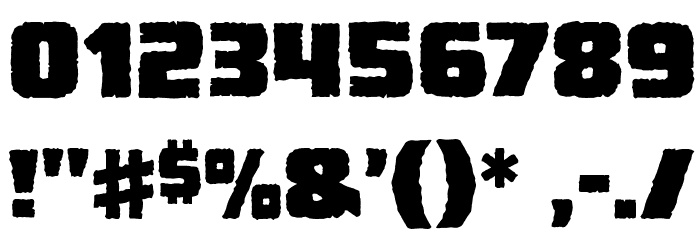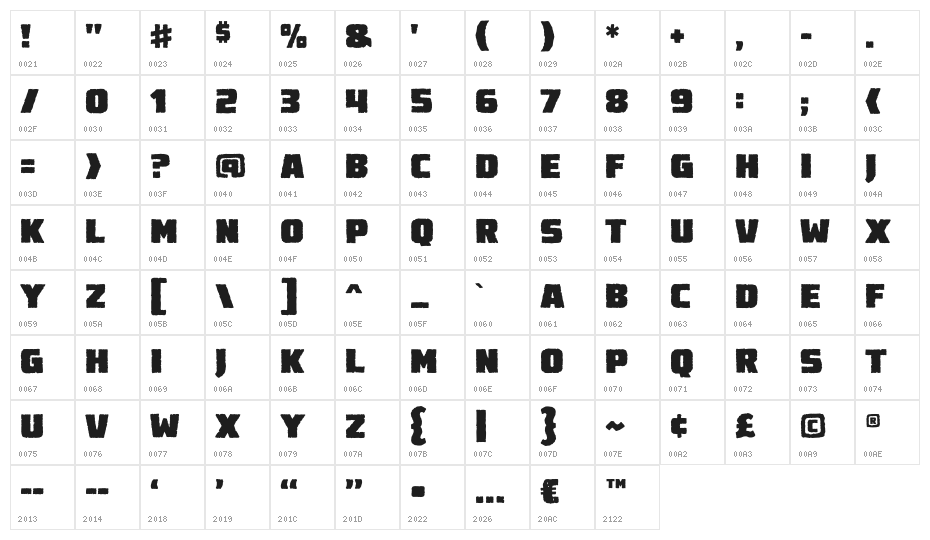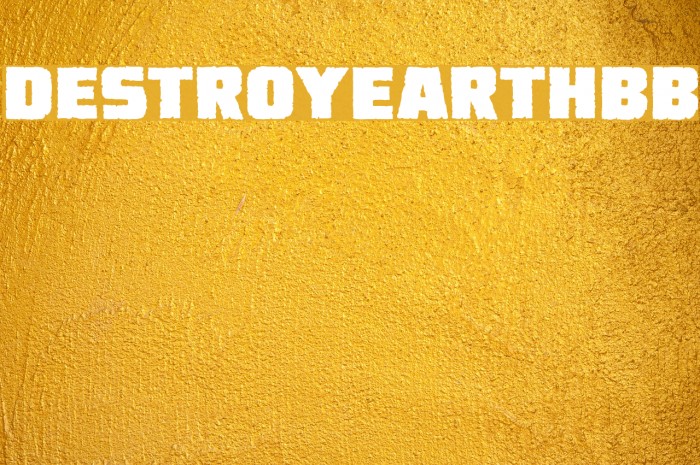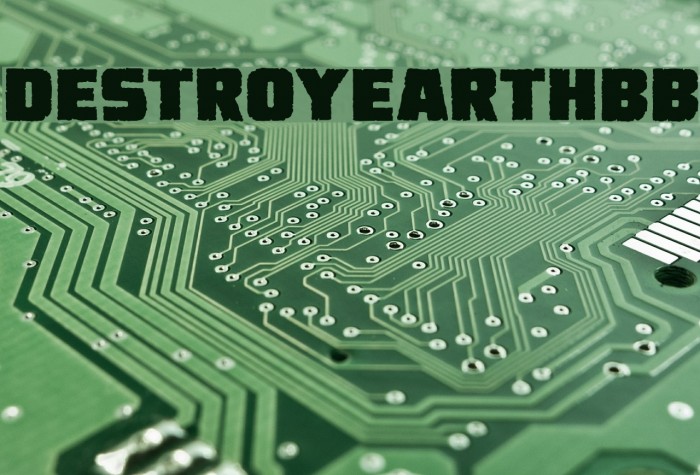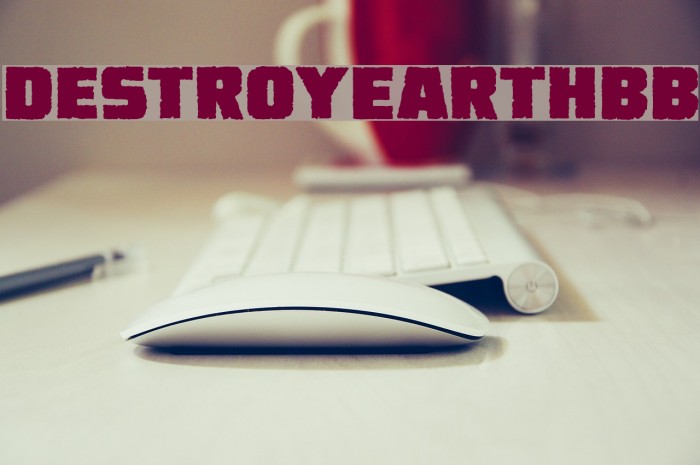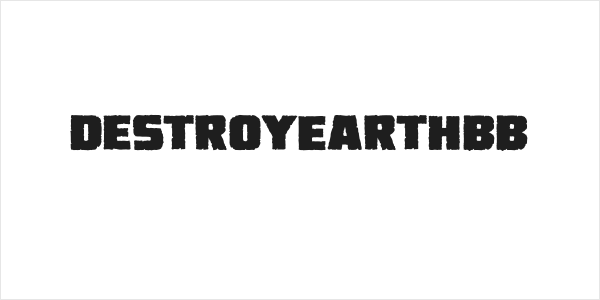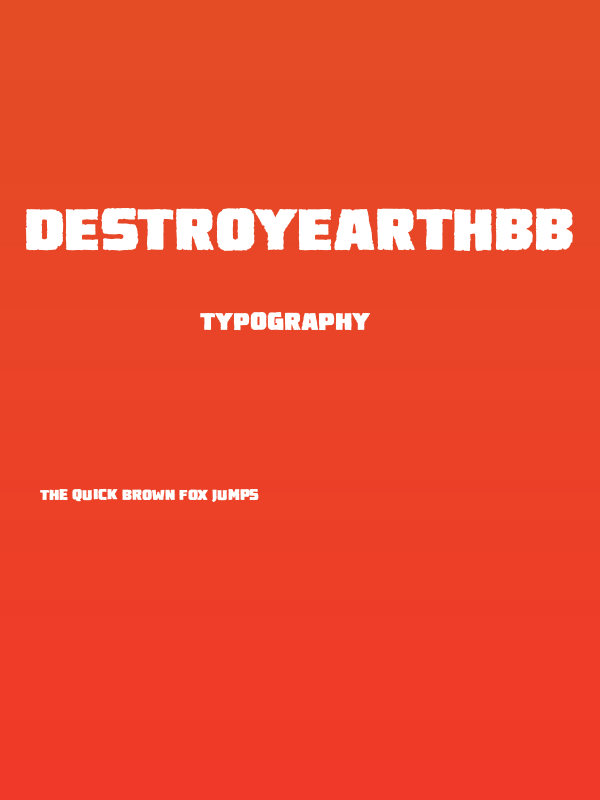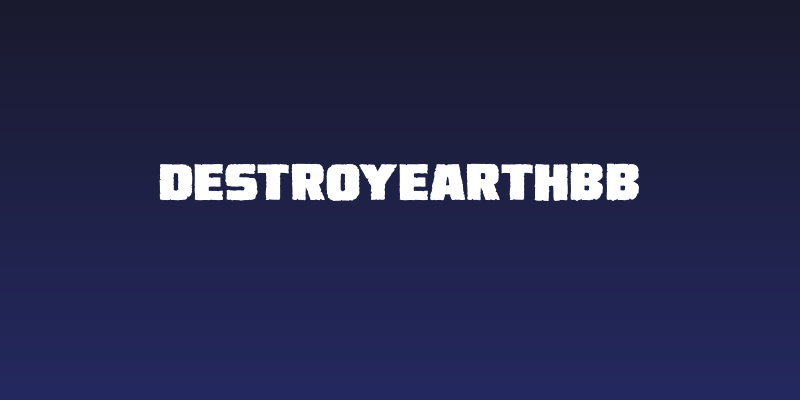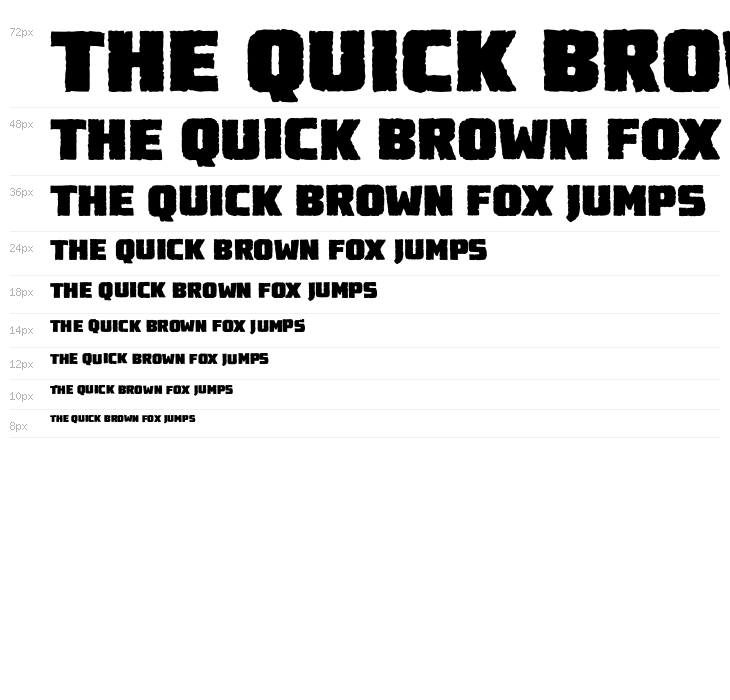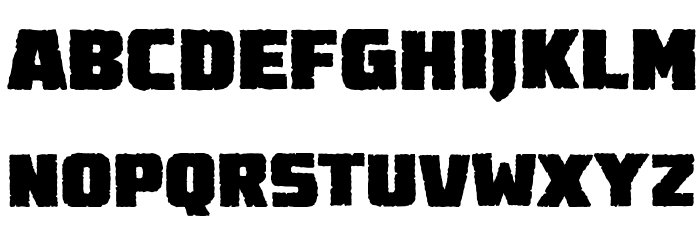
DestroyEarthBB Font
DestroyEarthBB Description
This font features a bold and rugged design, characterized by its distressed and textured appearance. The letters have a blocky structure with uneven edges, giving it a raw and impactful look. The uppercase and lowercase letters maintain a consistent style, with the numbers and special characters following suit. The font's heavy weight and strong presence make it ideal for attention-grabbing designs. Its unique style is reminiscent of industrial or grunge aesthetics, making it suitable for projects that require a bold statement.
| Proposed Projects | Ideal for posters, album covers, video game graphics, and branding that requires a strong, edgy look. |